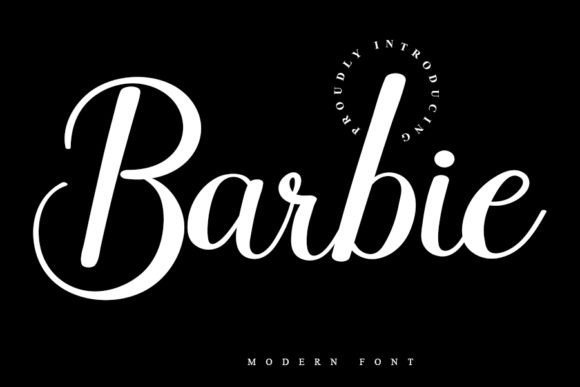
The Timeless Charm of Handwritten Typography
Have you ever found yourself daydreaming about the perfect font for a wedding invitation or a heartfelt thank you card? I know I have. For me, it’s the moment when the words start flowing, and the right font materializes in my imagination. It’s a magical feeling that’s hard to describe, but it’s the spark that ignites a creative project.
Meet Barbie Font, a beautiful script font that embodies the essence of elegance and charm. Its purpose is to add a personal touch to various designs, making them stand out in a world of digital clutter. As a designer, you’ll appreciate the value of Barbie Font in elevating your work from ordinary to extraordinary. Whether you’re crafting wedding invitations or creating logos, this font is sure to leave a lasting impression.
Key Features of Barbie Font
- Unique Characteristics: The Barbie font is known for its playful, cursive design, with distinctive swashes and flourishes that evoke a sense of whimsy and femininity.
Barbie Font Review
Overall, I have mixed feelings about the Barbie Font. It’s a unique and playful typeface, but its limitations hold it back from being a truly effective design tool.
- Cute and whimsical feel, perfect for feminine branding or children’s content
- Unique letterforms and flourishes add visual interest to text
- Can be used effectively in small sizes, making it suitable for social media or digital signage
- Lack of versatility – may not be suitable for corporate or formal branding
- Some letterforms may be difficult to read at larger sizes, particularly for older audiences
- Not ideal for body text, as it can be overwhelming to read in large blocks
Overall, the Barbie Font is a fun and playful typeface that’s best suited for specific niches. While it excels in certain areas, its limitations make it less versatile than other fonts. As a designer, I would consider using it for projects that require a cute, feminine touch, but I would need to carefully evaluate the context and intended audience before making a decision.
The Barbie font is ideal for:
- Young girl’s fashion and beauty-related content.
- Playful and whimsical branding and marketing materials.
For optimal results, use the Barbie font in combination with pastel colors and playful graphics.
Alternatives to “Barbie Font” for Designers
Cursive Script
Cursive Script is a classic, elegant font that mimics handwritten text. It’s perfect for invitations, wedding stationery, and other formal events where a touch of sophistication is desired.
Compared to Barbie Font, Cursive Script is more refined and less childish. While Barbie Font has a playful, whimsical feel, Cursive Script exudes a sense of luxury and formality.
Playfair Display is an elegant, high-end font that’s ideal for luxury branding, high-end fashion, and other premium products. Its unique combination of serif and sans-serif elements creates a sophisticated, eye-catching effect.
Playfair Display is more refined and sophisticated than Barbie Font, with a greater emphasis on luxury and elegance. While Barbie Font is playful and whimsical, Playfair Display is serious and high-end.
Great Vibes is a beautiful, handwritten font that’s perfect for creative projects, such as typography posters, quotes, and other decorative elements. Its unique, hand-painted feel adds a touch of personality to any design.